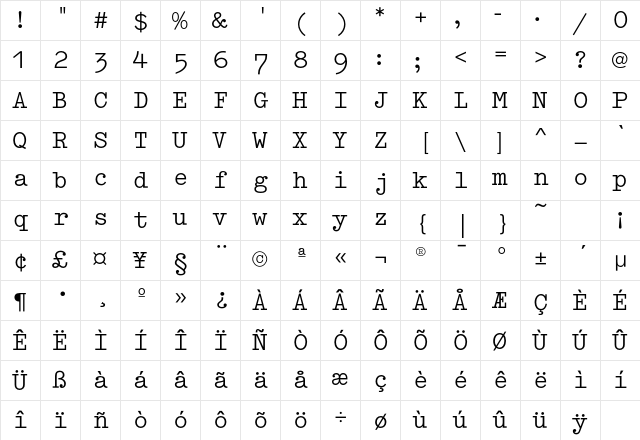
Complete SchreibmaschineEF-Regular glyph index. Displaying only characters natively supported by SchreibmaschineEF-Regular font.
SchreibmaschineEF-Regular is a composed and adaptable typeface that performs quietly and consistently across a wide range of design contexts.